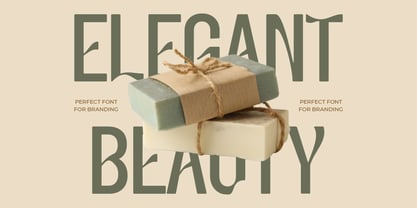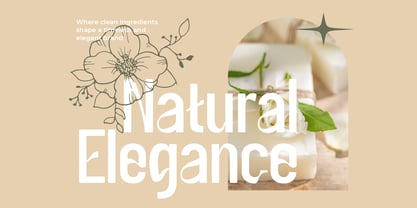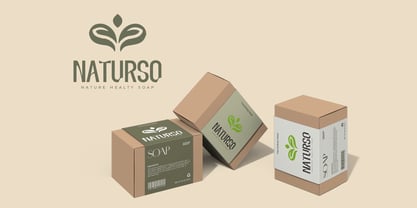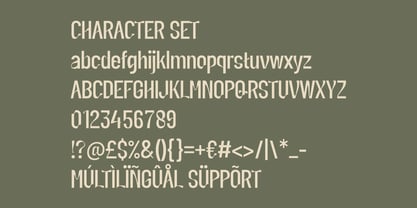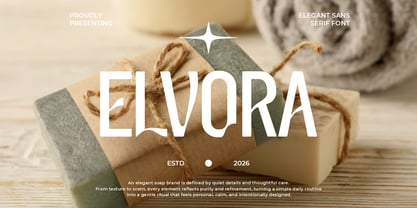
Elvora
by Shanaf
The Elvora Font Family was designed by Yesie Erma Yunita and published by Shanaf. Elvora contains 1 styles. More about this family
Elvora Modern Elegant Font is designed with clean geometry and soft, refined proportions. The letterforms appear tall and well balanced, creating a calm and confident reading flow. Stroke weight stays consistent, giving the font a smooth and controlled appearance. Curves feel gentle, while straight lines remain precise and modern. This balance helps the font look neat without appearing rigid. Spacing is carefully measured, allowing words to breathe in logos and headlines. The overall form supports clarity at various display sizes. Elvora Modern Elegant Font presents a contemporary sans character that feels graceful and approachable. Its structure emphasizes readability while maintaining a polished visual tone. This makes the font reliable for long term brand use. The style fits modern, elegant, and minimalist branding themes with a strong focus on beauty and care products. This font works especially well for soap brands, skincare lines, wellness products, cosmetic studios, and natural goods businesses. It supports usage across logos, branding systems, packaging, labels, posters, advertisements, headlines, invitations, magazine titles, book covers, greeting cards, and stickers. The clean design helps product names and brand messages feel calm and trustworthy. It also suits businesses that value softness, simplicity, and modern identity. The font adapts easily to print and digital media. Its multilingual support allows consistent branding across global markets. Elvora Modern Elegant Font helps brands communicate care, elegance, and intention through typography.